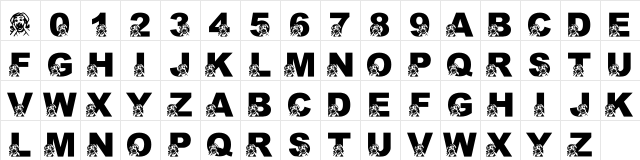
LMS Oh The Horror Of It All Regular
Design Context for LMS Oh The Horror Of It All Typeface
LMS Oh The Horror Of It All carries an unsettling edge — its distorted letterforms are built to unsettle, perfectly suited to horror, Halloween, and dark creative work.
Perfect for anything that needs to unsettle — game titles, horror branding, and macabre invitations.
Font Pairing: Pair with a clean neutral sans-serif for body copy to let LMS Oh The Horror Of It All's character lead without overwhelming the composition.
Pro Tip: Use LMS Oh The Horror Of It All at larger display sizes for maximum impact. Consider generous tracking to let the disturbing character of each letterform breathe.